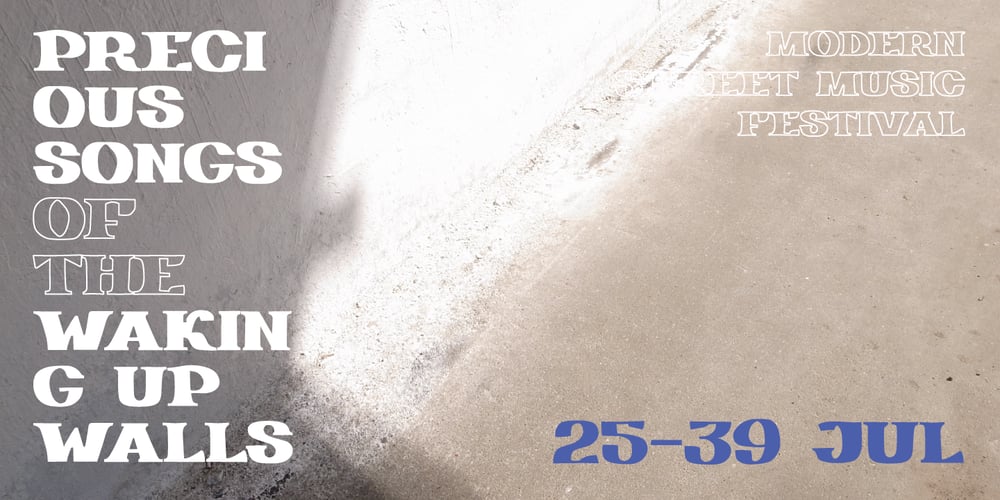
Helgis Black
Helgis Black font
Helgis Black Font Family was designed by Oleg Stepanov and published by Oleg Stepanov. Helgis Black contains 1 styles and family package options. Helgis Black is a hand crafted font, inspired by album covers of progressive and psychedelic rock bands of 70’s. It is perfectly suited for covers (books, albums), posters and games.